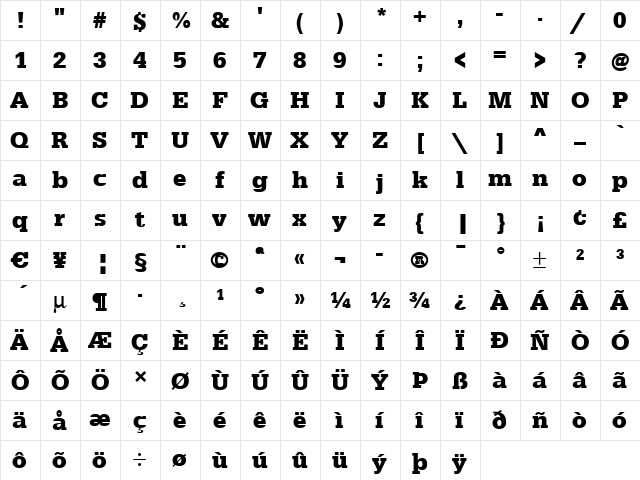
AnitaBecker Bold
Design Context for AnitaBecker Typeface
AnitaBecker takes a measured approach to typography — its balanced proportions and neutral character make it a reliable workhorse for both digital and print work. The heavy weight commands attention and anchors typographic hierarchies.
Pro Tip: Use AnitaBecker in both headline and body roles to test its range before committing to a single application.